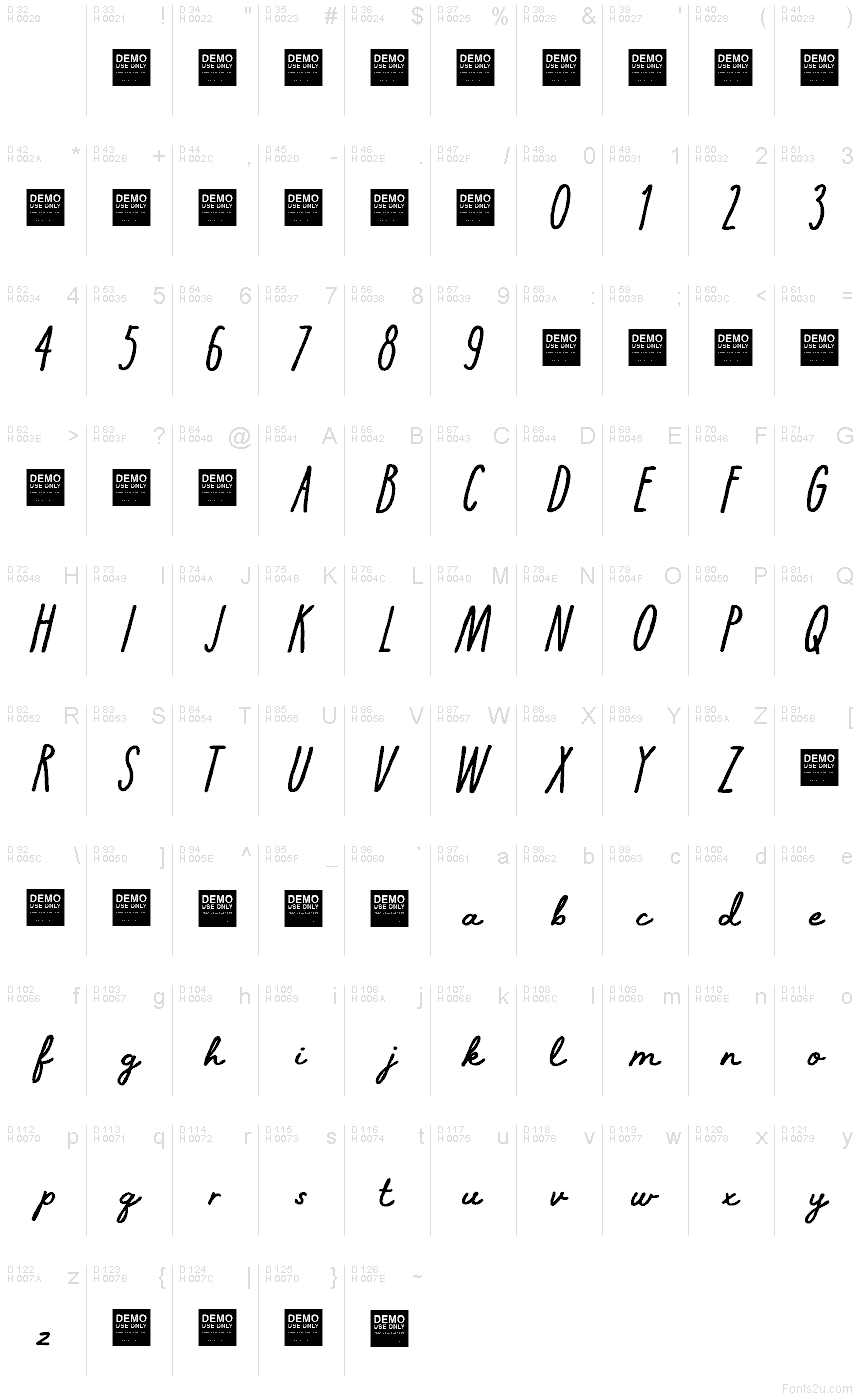
Timeless Moments
Timeless Moments is a stylish and elegant free handwritten font created to add that extra sophisticated touch to your projects. The font from BLKBK Fonts integrates fluid lines into its condensed characters that present its retro-inspired style. You will find this careful combination suitable for many professional purposes.
The font applies effortlessly in brand designs which include logos, labels, business cards, and product packaging/labels. Similarly, it looks stunning in magazine/book covers and underlines texts of long paragraphs laid out elegantly. Other possible use cases include posters, quotes, greeting cards for different occasions, and apparel designs.